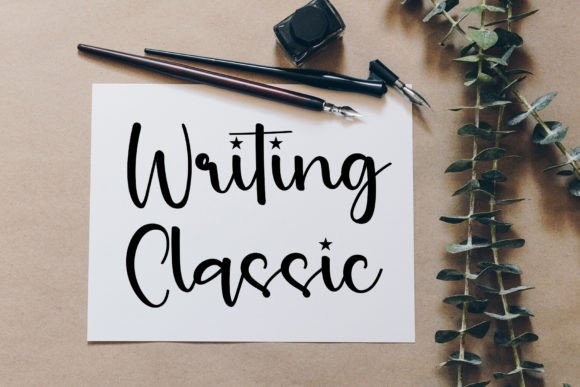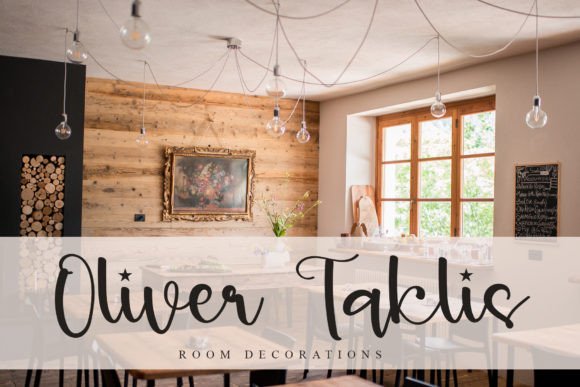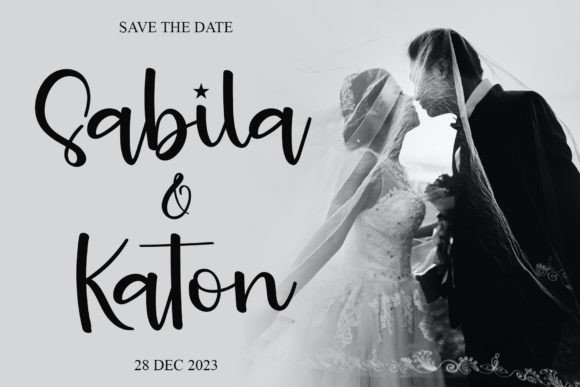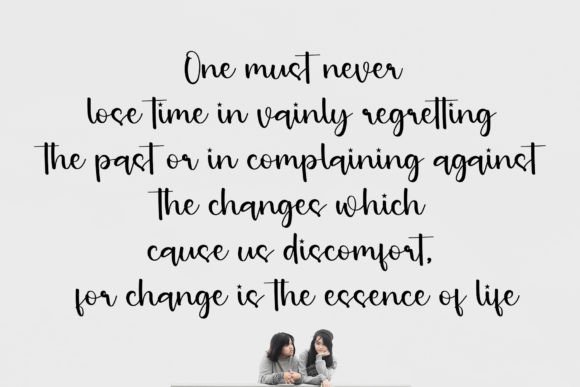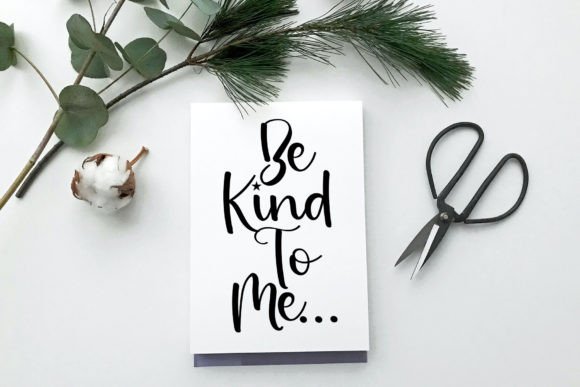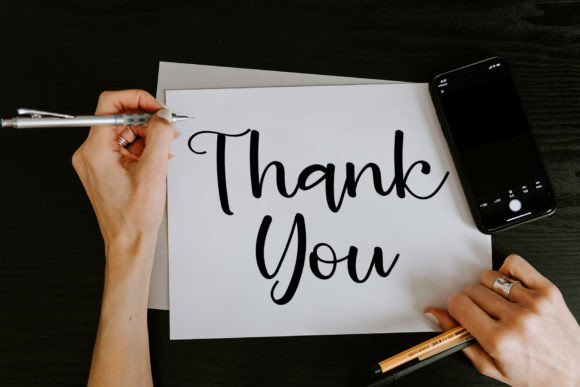
Adding a Touch of Elegance: Unveiling the Brithday Font
It’s that moment when you’re brainstorming ideas for a special occasion, and the perfect font suddenly pops into your mind. The sparkle in your eyes, the thrill of excitement – it’s what makes being a designer so magical. And for those perfect moments, we have the Brithday Font, a stylish handwritten font that brings a touch of timeless classic calligraphy to your projects.
This beautifully crafted font is designed to elevate the beauty of your creations, making it a valuable addition to any designer’s toolkit. With its balanced and varied style, the Brithday Font is perfect for adding a personal touch to your designs. Plus, its PUA encoding allows for easy access to its amazing glyphs and ligatures, giving you the freedom to get creative.
Birthday Font Key Features
- Unique Characteristics: The Birthday Font features a playful, cursive script with decorative flourishes, making it perfect for celebratory designs, invitations, and social media graphics.
Designer Review: Birthday Font
First impressions count, and Birthday Font ✨ does deliver. The playful and whimsical design immediately catches the eye, making it perfect for celebratory occasions. The font’s rounded edges and lively script create a sense of joy and excitement.
The font’s customization options are another highlight ✨. With a wide range of color schemes and layout choices, users can tailor their design to fit their specific needs. This flexibility makes Birthday Font an attractive choice for various applications, from social media graphics to invitations.
While Birthday Font is a delightful addition to any design project, there are some limitations ⚠️ worth mentioning.
It may not be suitable for formal or professional settings, as it can come across as too playful or immature.
The font’s complexity may make it difficult to use for text-heavy designs, as the script can be dense and overwhelming.
Birthday Font is a charming and versatile font that excels in creative and celebratory contexts. While it may not be the best fit for every design project, its unique charm and customization options make it a valuable addition to any designer’s toolkit.
The Birthday Font is perfect for creating festive invitations, greeting cards, and social media posts. To get the most out of it, use it in combination with bright colors and fun graphics.
- Birthday invitations and party decorations.
- Greeting cards and gift tags.
- Social media posts and event promotions.